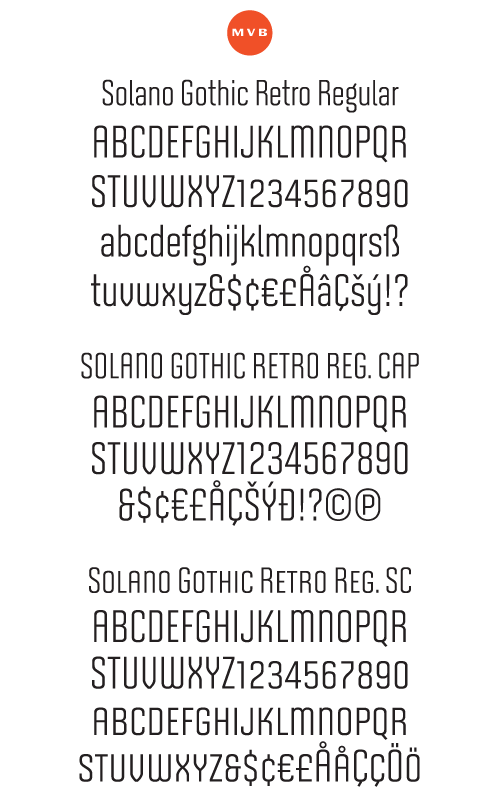
MVB Solano Gothic was originally designed as a display face for the City of Albany, California, located on the San Francisco Bay facing the Golden Gate Bridge and bordering the the Berkeley hills. Named for the City's main street, the typeface needed to work on signage in proximity to older buildings, in contemporary settings, and for general print and web use. Rather than creating a neutered design to cover all bases, Mark van Bronkhorst chose to develop a simple, strong, condensed face that would offer flexibility of style by providing both retro and neutral forms.MVB FONTS End User License Agreement